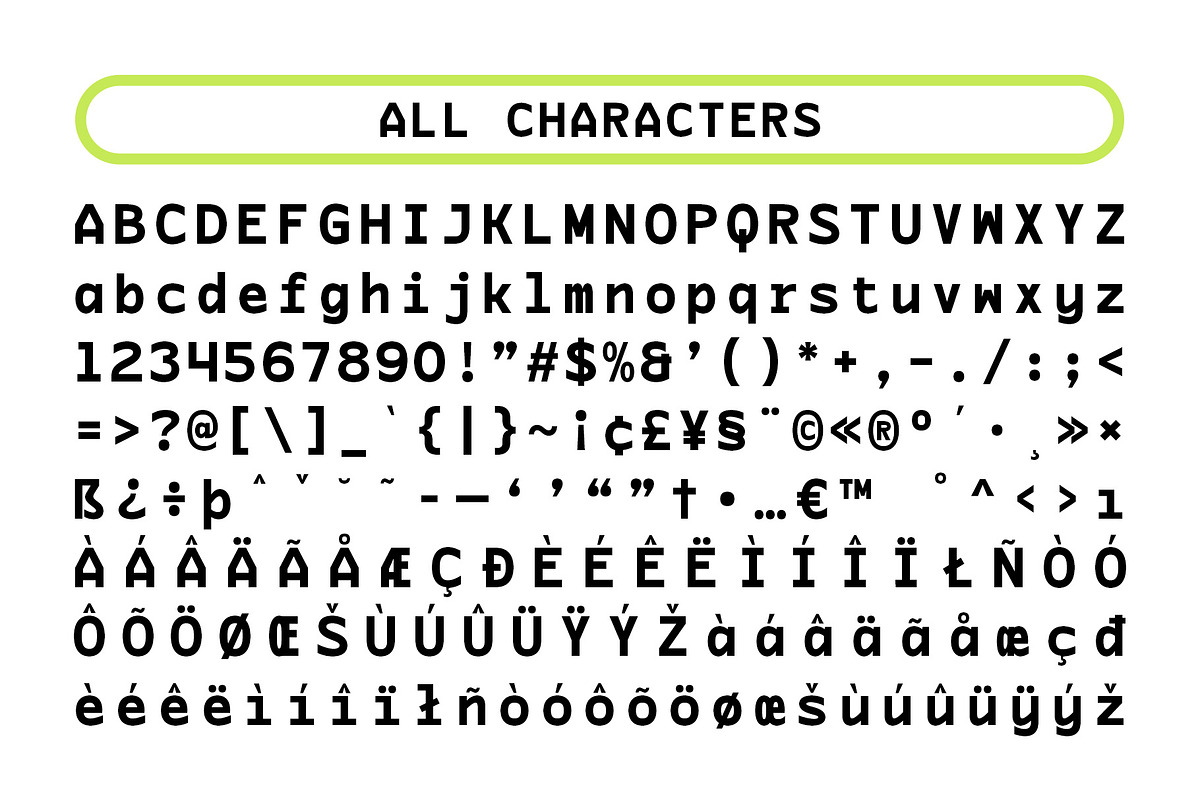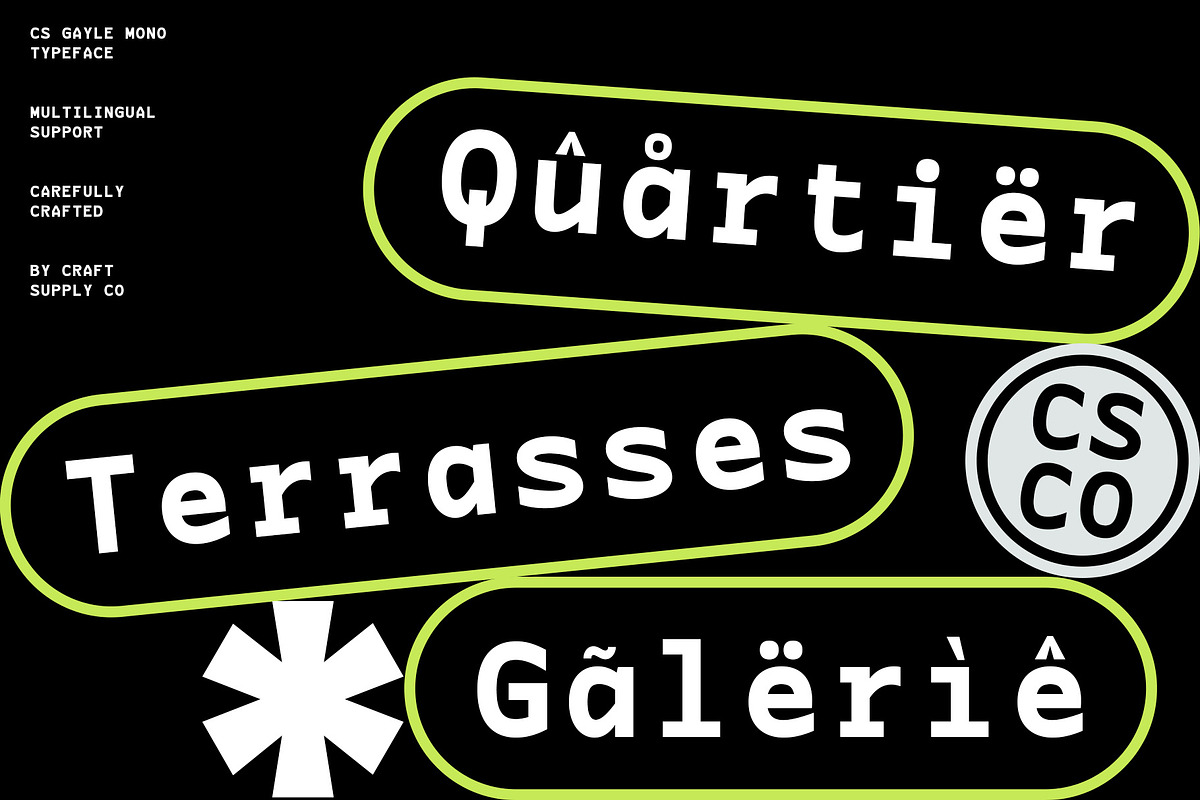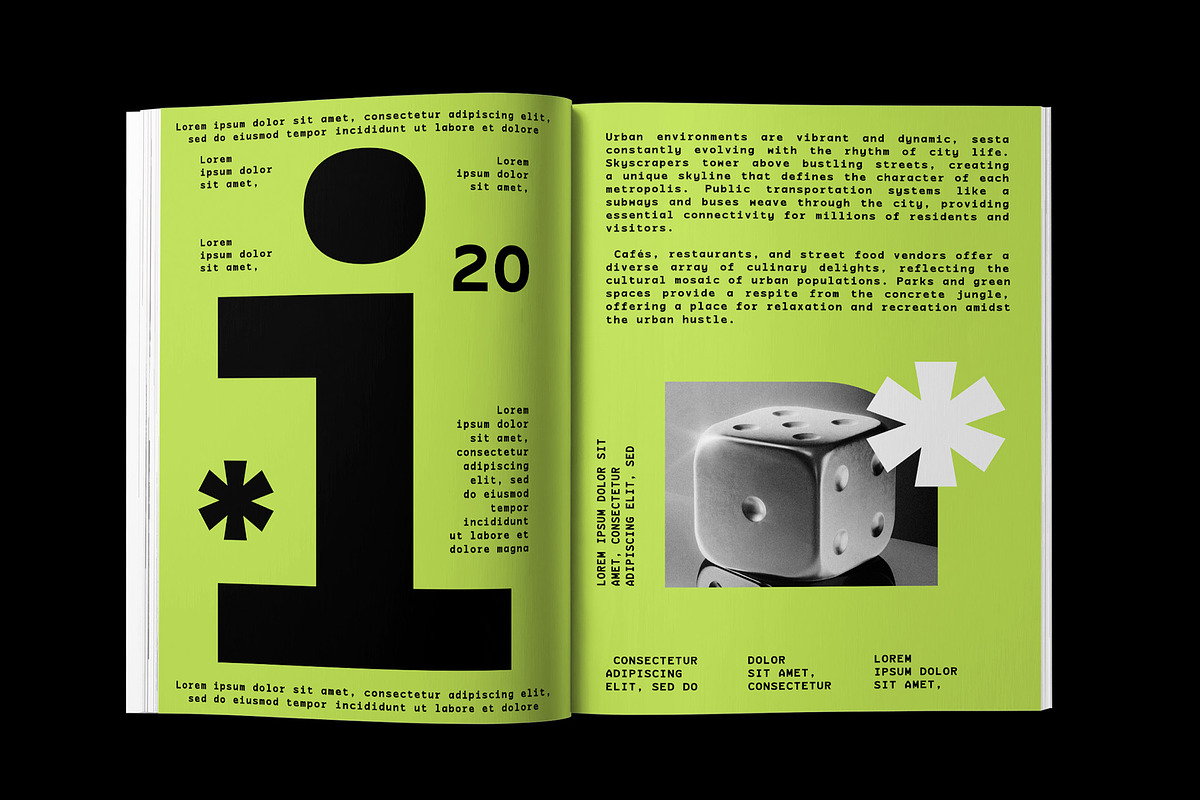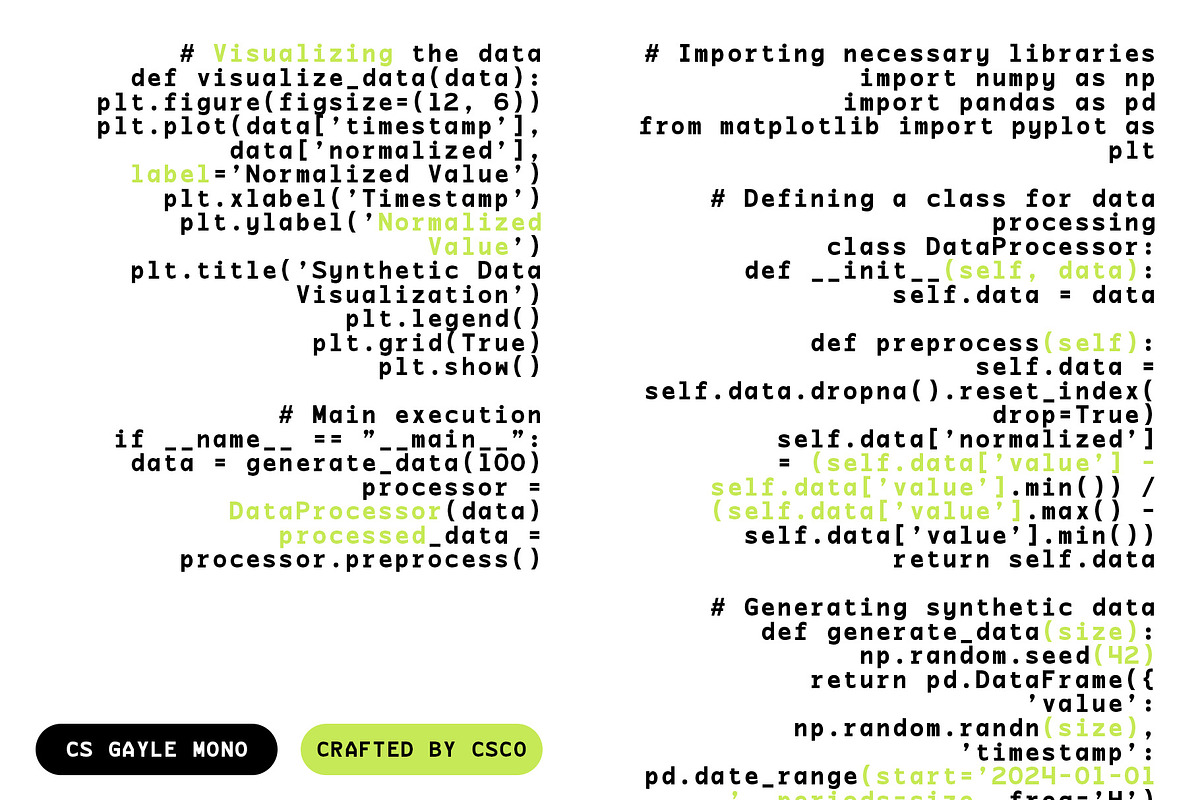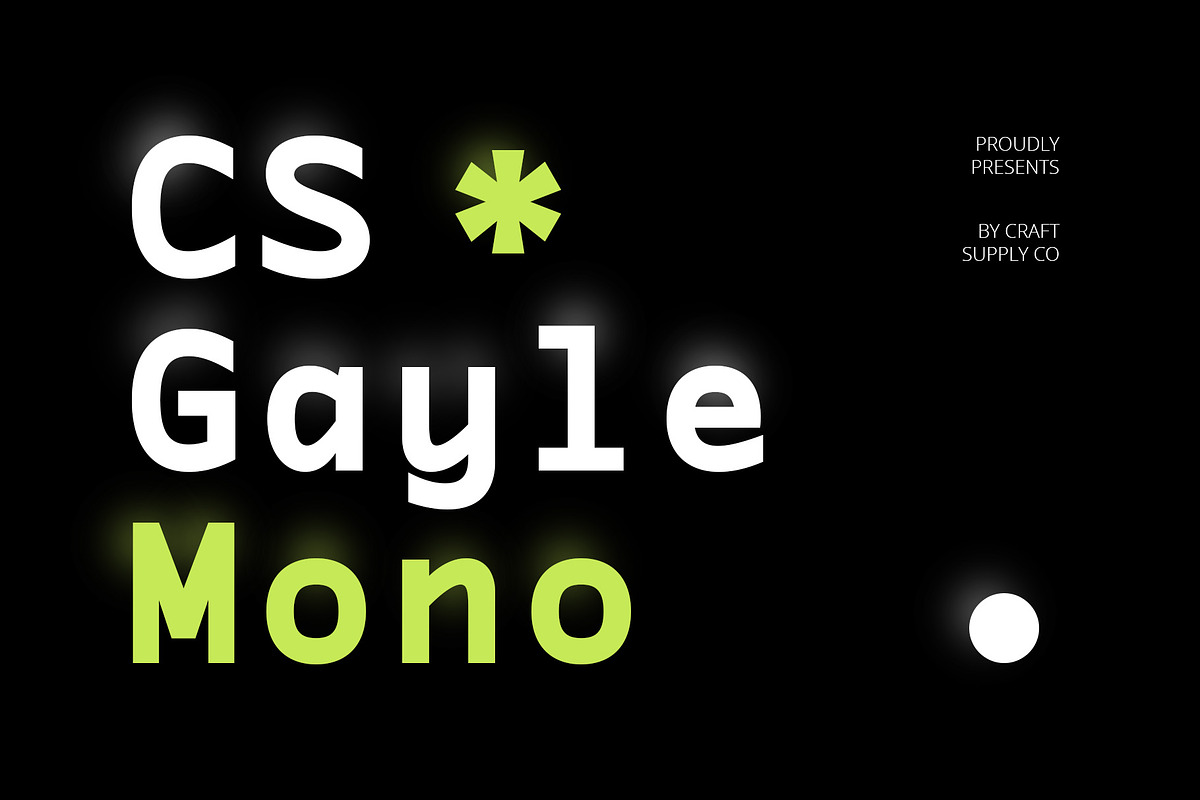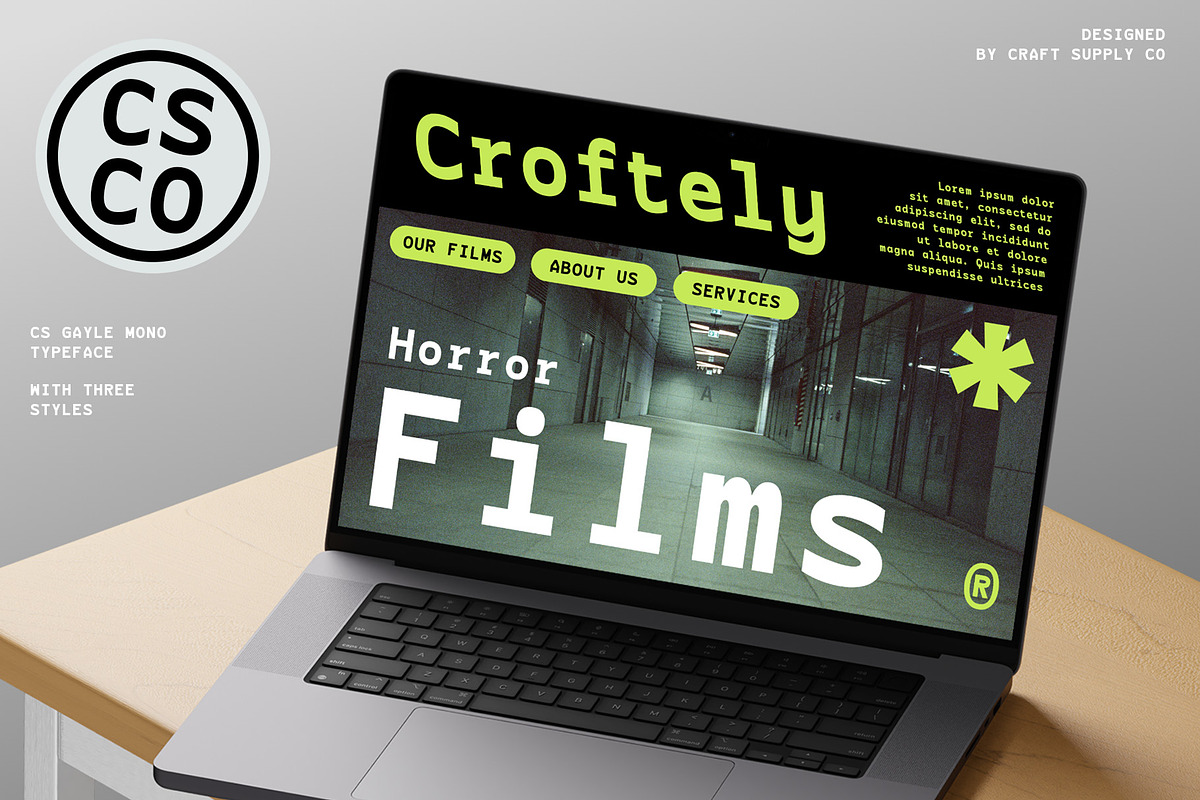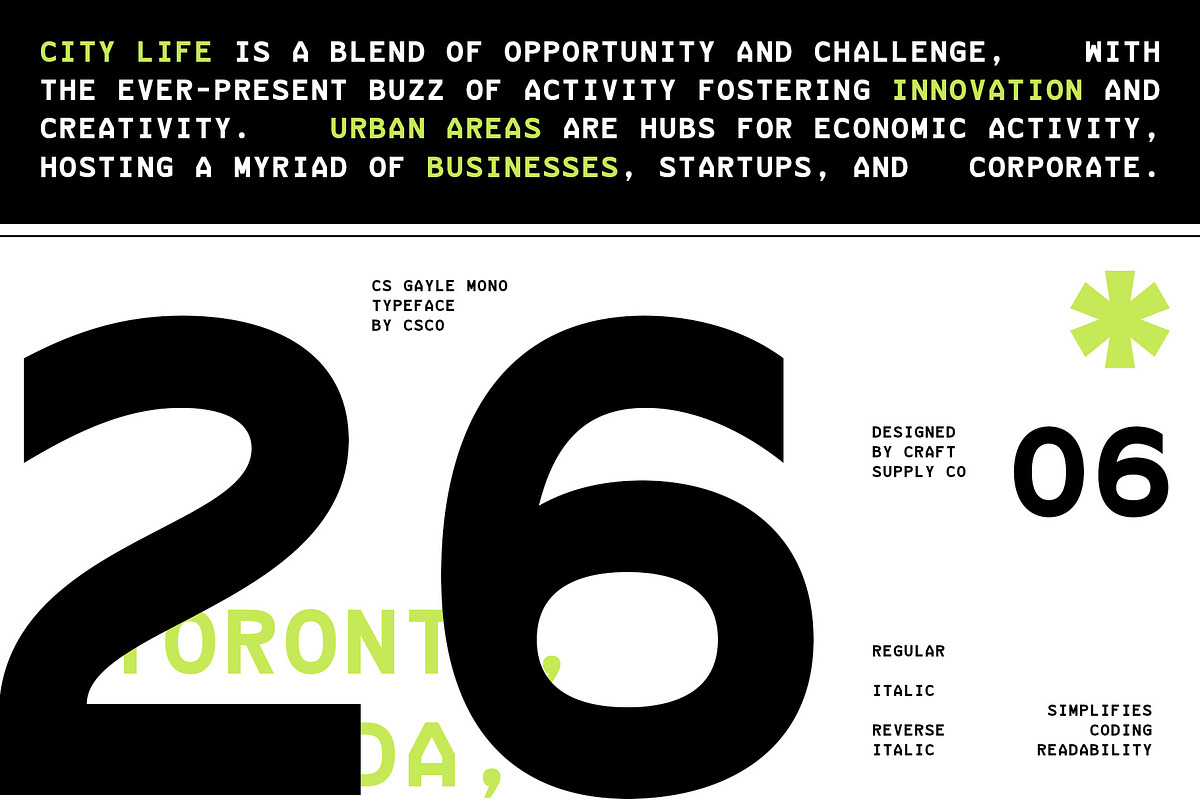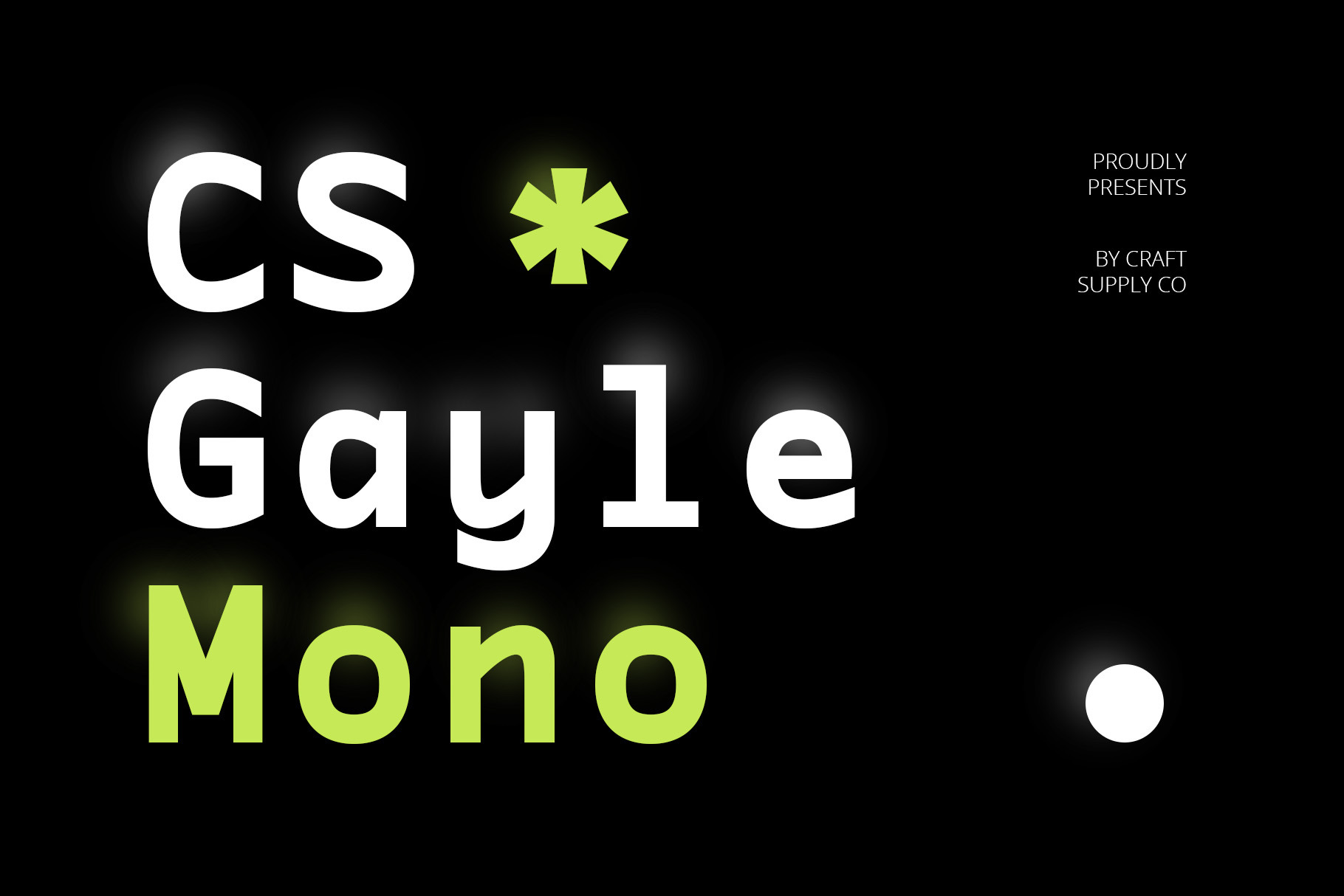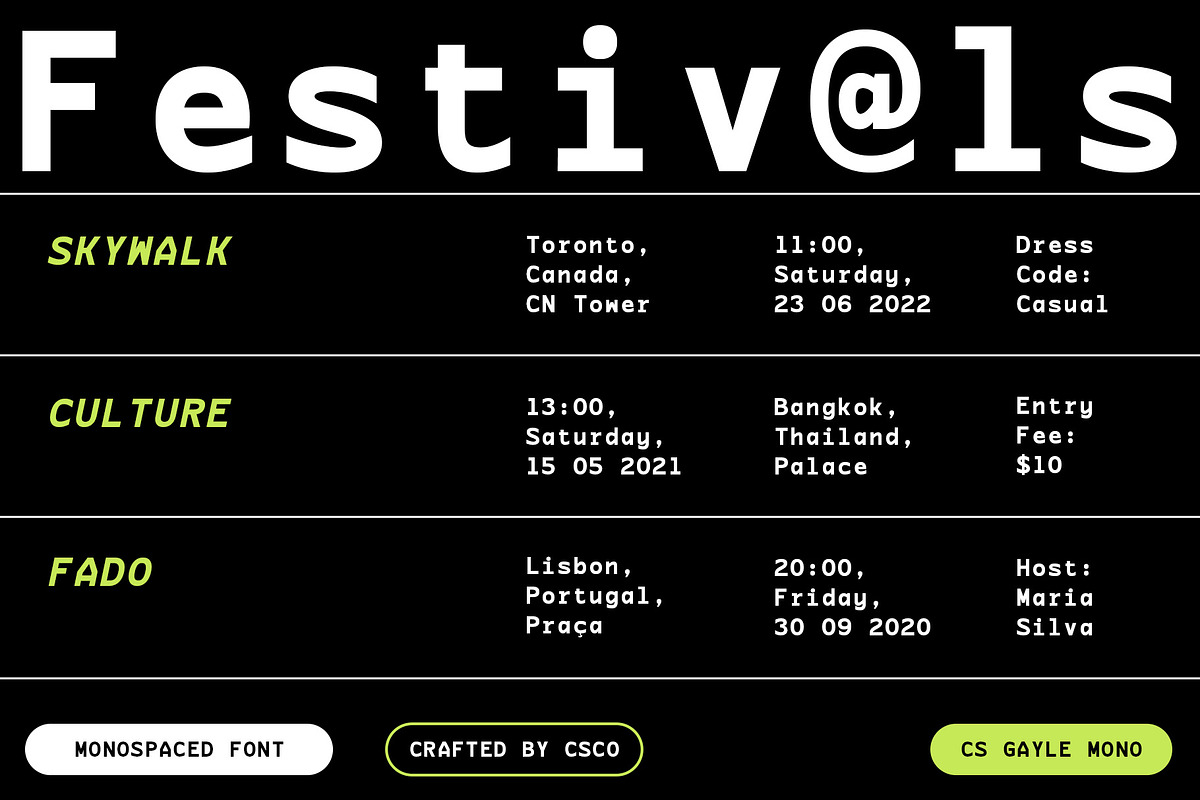
CS Gayle Mono – Sans Serif Typeface
CS Gayle Mono – Sans Serif Typeface: Simple and Clear Design for Technical Contexts
Simplicity and Clarity
CS Gayle Mono is a modern sans serif typeface known for its simplicity and clarity in design. Recognized for its clean and sharp shapes, this font ensures readability and maintains a professional appearance.
Ideal for Technical Use
Designed with technical contexts in mind, such as programming and documentation, this CS Mono font excels in clarity and precision. Its straightforward design enhances the readability of text, making it ideal for code layouts, technology websites, and other projects requiring a clean and organized appearance.
Professional and Modern
The clean lines and sharp edges of this CS Mono font contribute to its modern and professional aesthetic. Whether used in digital interfaces or printed materials, this font maintains clarity and visual appeal, ensuring effective communication of technical information.
Versatile Application
CS Gayle Mono’s versatility extends to various design applications where simplicity and clarity are paramount. It adapts well to both digital and print media, providing a reliable typographic solution for projects demanding precision and readability.
Conclusion
In conclusion, this CS Mono font is a sans serif typeface that combines simplicity and clarity with a modern and professional appearance. Perfect for technical contexts and design projects requiring readability and precision, this font ensures effective communication and visual appeal.
- CS Gayle Mono Regular
- CS Gayle Mono Italic
- CS Gayle Mono ReverseItalic